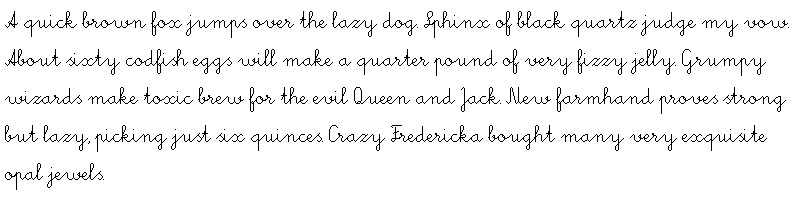
little experiment expanding on what Kyyle begun.
Pixel fonts have advantage that some little inperfect connections hide in overlaping or seeming gap in pixels...